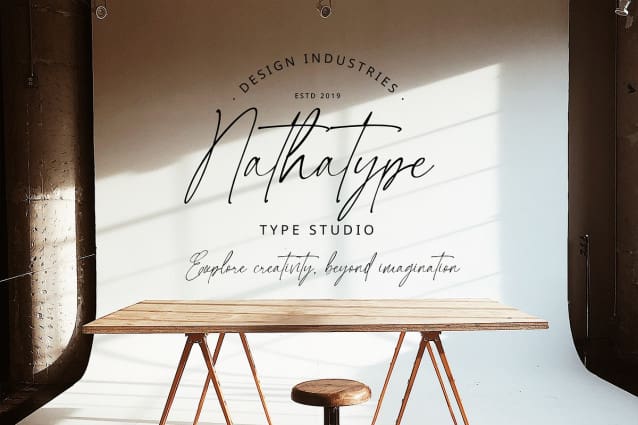
Bluewind Handwritten Font
Bluewind Handwritten Font is a script font that that is designed to replicate the beauty of a handwritten signature. Every letter in this font is meticulously crafted with a subtle, low-contrast approach, creating an effortless appearance reminiscent of an artist’s signature on paper. The delicate curves and swashes give the font a sense of organic movement, as if each letter was penned by hand with a confident stroke. Bluewind’s distinct charm lies in its intricate detailing of swinging letterforms. The carefully calibrated spacing and graceful curves of Bluewind ensure that it remains not only visually captivating but also easy to read.